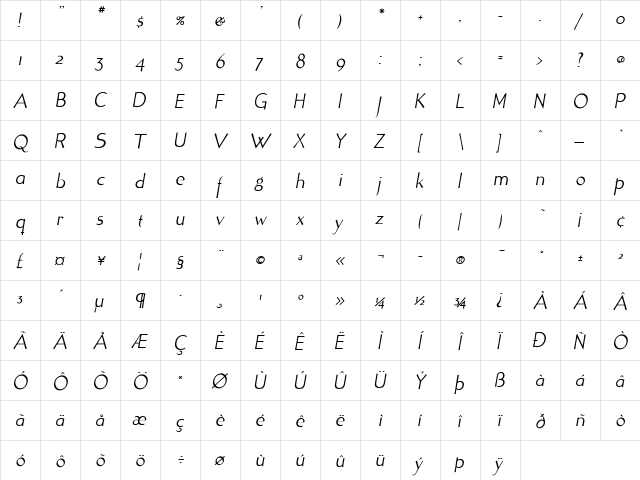
Tonic Medium Italic Font Preview
Tonic Medium Italic
Tonic Medium Italic Font Details
| Style | Medium Italic |
Design Context for Tonic Typeface
Tonic is a composed and adaptable typeface that performs quietly and consistently across a wide range of design contexts. Its italic angle brings a sense of urgency and motion to the letterforms.